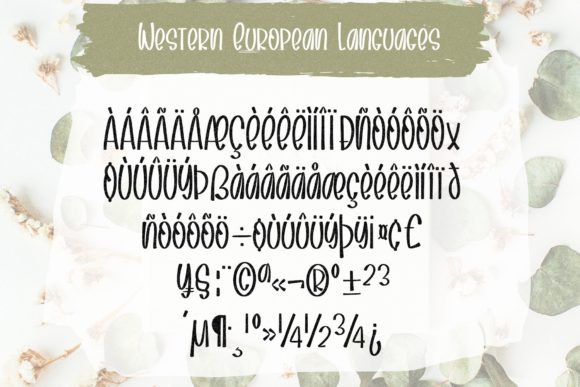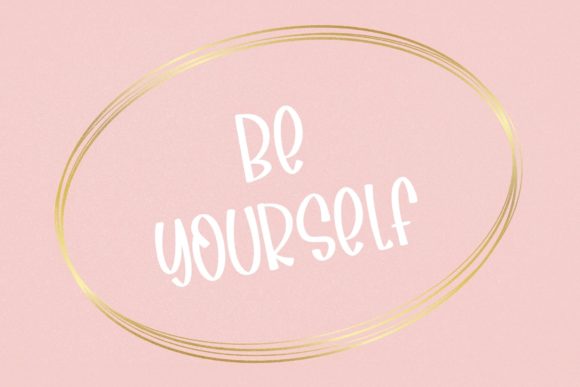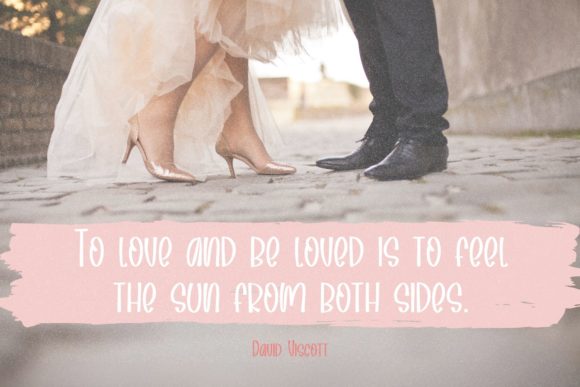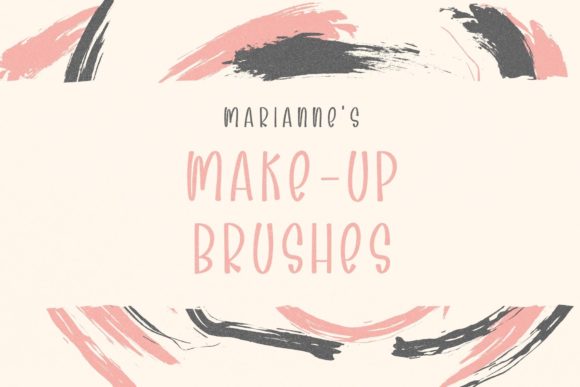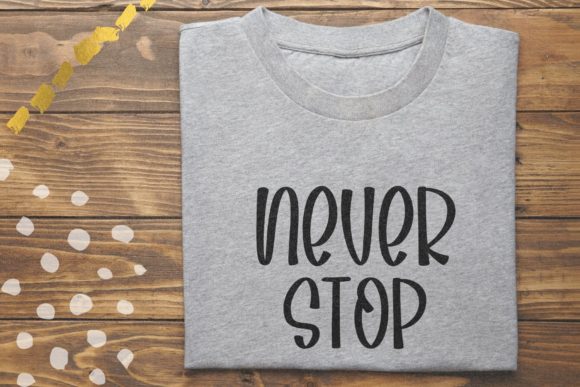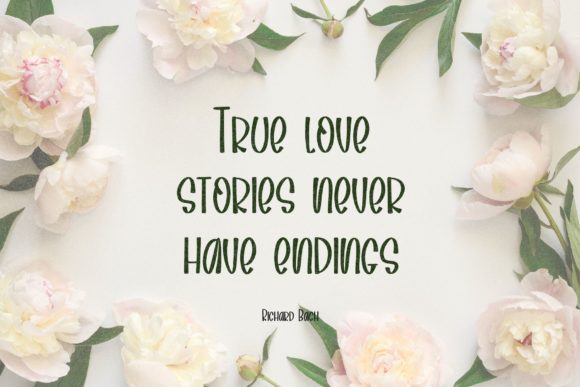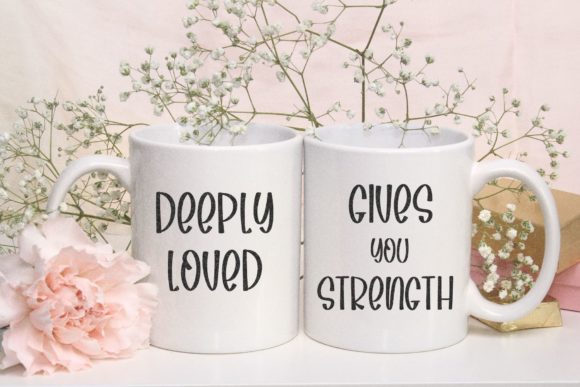
Christmas Tree Font
About Christmas Tree Font
Christmas Tree is an adorable, festive handwritten font. This font will brighten up any holiday design you wish to create!